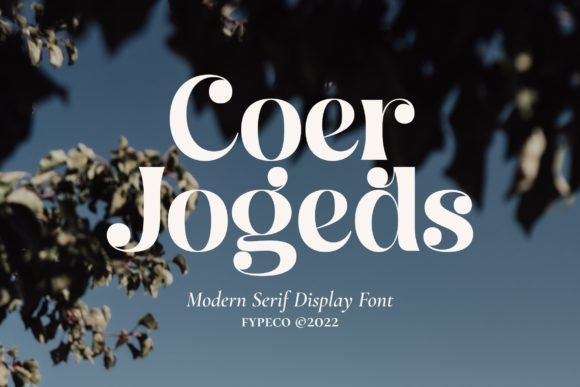
Coer Jogeds: A Serif Display Font for Bold Visual Impact
Coer Jogeds for Editorial Projects and Professional Branding
Coer Jogeds is a unique serif display font that brings a touch of elegance and sophistication to editorial projects, making it ideal for content creators who want to stand out. With its rich alternates and ligatures, Coer Jogeds can elevate headlines, article titles, and magazine layouts with a refined visual appeal. Whether you're designing a blog post, newsletter, or digital magazine, this display font ensures your content feels professional and visually engaging.
For marketers and designers focused on brand consistency, Coer Jogeds offers the versatility needed to maintain a cohesive look across different editorial formats. Its ability to scale well in both large and small sizes makes it perfect for headlines that need to grab attention while remaining readable in smaller text blocks.
Coer Jogeds for Logo Design and Brand Identity
When crafting a logo, every detail matters, and Coer Jogeds provides a strong foundation for creating a memorable brand identity. As a serif display font, it conveys a sense of tradition and trustworthiness, which can be especially effective for brands in industries like finance, fashion, or publishing. The font's alternates and ligatures allow for customization, ensuring your logo stands out from competitors.
Using Coer Jogeds in logo design helps establish a visual hierarchy that reinforces brand recognition. It works particularly well when paired with minimalistic elements or modern color schemes, balancing classic typography with contemporary aesthetics. This font can serve as the centerpiece of your brand’s visual language, appearing on business cards, packaging, and website headers.
Coer Jogeds for Social Media Graphics and Campaigns
Coer Jogeds is a powerful tool for social media designers looking to create scroll-stopping visuals. Its bold and distinctive style makes it ideal for Instagram posts, Pinterest pins, YouTube thumbnails, and Facebook ads. When used for headlines or callout text, Coer Jogeds adds a layer of visual interest that draws users’ eyes and encourages engagement.
In fast-scrolling feeds, readability is key, and Coer Jogeds delivers clear messaging even at smaller sizes. For campaigns targeting luxury, lifestyle, or creative niches, this font enhances the overall mood and tone of the content. Pair it with a clean sans serif font for captions to achieve a balanced and professional look that resonates with your audience.
Coer Jogeds for Website Banners and Landing Pages
On websites, first impressions matter, and Coer Jogeds can help make an immediate impact. Whether you're designing a hero banner, promotional section, or landing page headline, this display font ensures your message is communicated effectively. Its elegant curves and strong structure give a polished feel that aligns with high-end brands or editorial sites.
For online shops or product launches, using Coer Jogeds in banners and promotional sections can create a sense of exclusivity and quality. It works best for short, impactful text such as sale announcements, limited-time offers, or new product teasers. The font’s legibility on mobile screens also ensures your content remains accessible and engaging across all devices.
Coer Jogeds for Email Headers and Digital Ads
Email marketing and digital advertising require concise, compelling copy, and Coer Jogeds is perfectly suited for these purposes. As a display font, it can be used for subject lines, email headers, and call-to-action buttons to capture attention and drive clicks. Its versatility allows it to work seamlessly in both desktop and mobile views, ensuring your messages are always clear and impactful.
When designing email templates or ad creatives, consider how Coer Jogeds interacts with other design elements. It pairs well with contrasting colors and minimalist backgrounds, allowing the font to take center stage without overwhelming the viewer. This makes it an excellent choice for brands aiming to reinforce their visual identity through consistent typography across all digital channels.
Coer Jogeds for Reels Covers and Video Content
With the rise of video content, having a strong visual hook is more important than ever. Coer Jogeds can be used effectively in reels covers, YouTube thumbnails, and video intros to create a lasting impression. Its distinct character and stylistic flourishes add a touch of creativity that can set your content apart from the rest.
For content creators producing tutorials, reviews, or vlogs, using Coer Jogeds in title overlays or captions can enhance the overall aesthetic. It’s especially useful for branded content series or campaign videos where maintaining a consistent look is essential for building brand recognition over time.
Coer Jogeds for Print and Digital Packaging Design
While primarily a digital display font, Coer Jogeds can also find its place in print and packaging design. Its clean yet expressive style works well for product labels, box designs, and packaging inserts. The font’s alternates and ligatures provide opportunities for customizing text to match specific branding needs, whether you’re launching a new line or rebranding an existing product.
For e-commerce brands or boutique retailers, using Coer Jogeds in packaging design can help differentiate products on shelves and online. It adds a layer of sophistication that appeals to consumers looking for premium, well-designed goods.
Coer Jogeds for Webinars and Online Events
Webinars and online events often rely on strong visual cues to engage participants, and Coer Jogeds can play a key role in this. From webinar banners to registration pages, this font can help create a sense of professionalism and authority. Its structured yet elegant appearance is particularly effective for educational or corporate webinars.
When designing event graphics, use Coer Jogeds for main titles and key messages to ensure clarity and impact. It pairs well with subtle background textures or gradients, offering a balance between visual interest and readability. This font can also be used in promotional emails or social media posts to generate buzz around upcoming events.